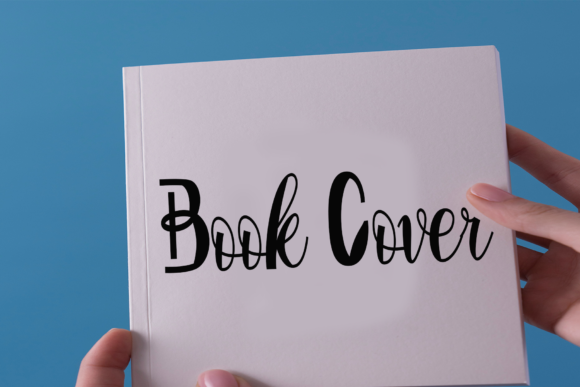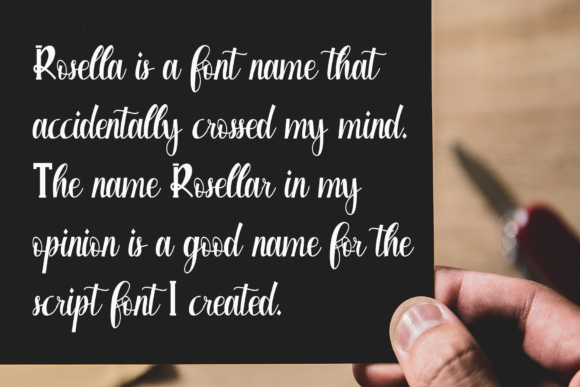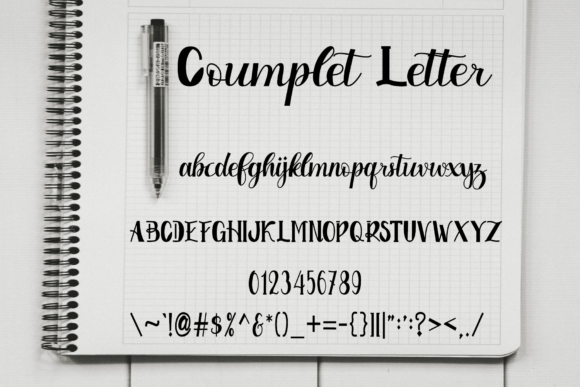
Introduction to Rosellar Font
Rosellar is a unique and attractive handwritten font.
It will add a really fun touch, add to your most creative ideas and watch how they bring them to life .
Rosellar Font offers exceptional quality and versatility, making it a valuable addition to your design toolkit. Whether you’re creating for personal projects or commercial use, Rosellar Font delivers professional results.